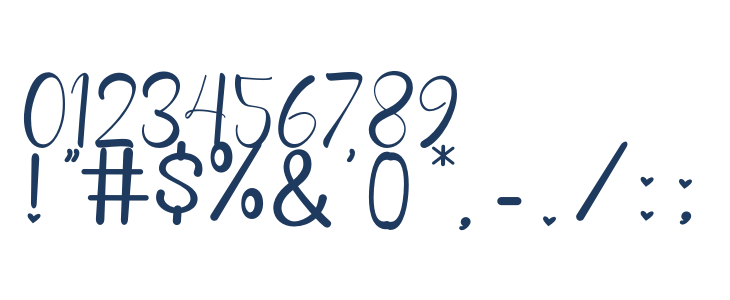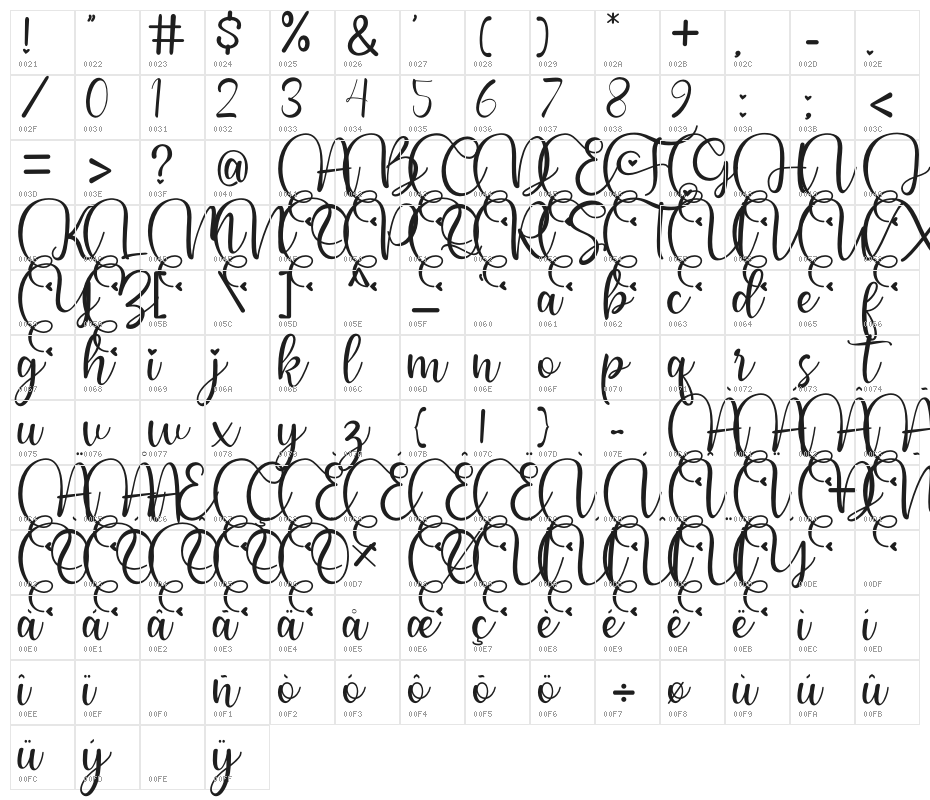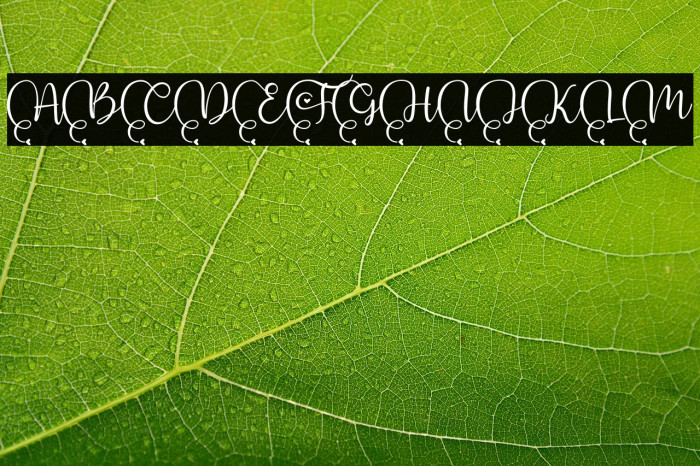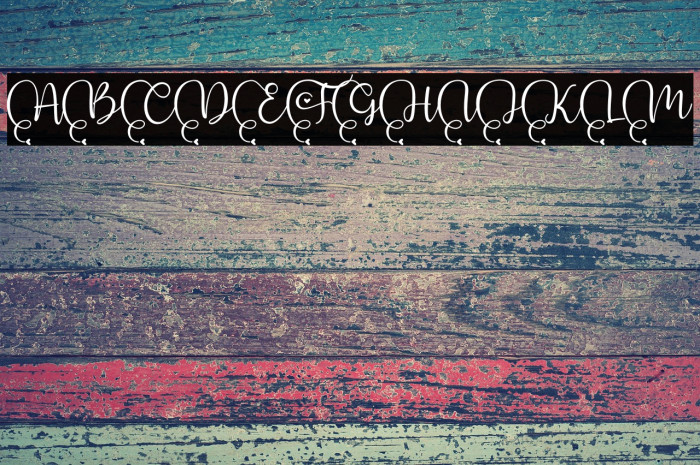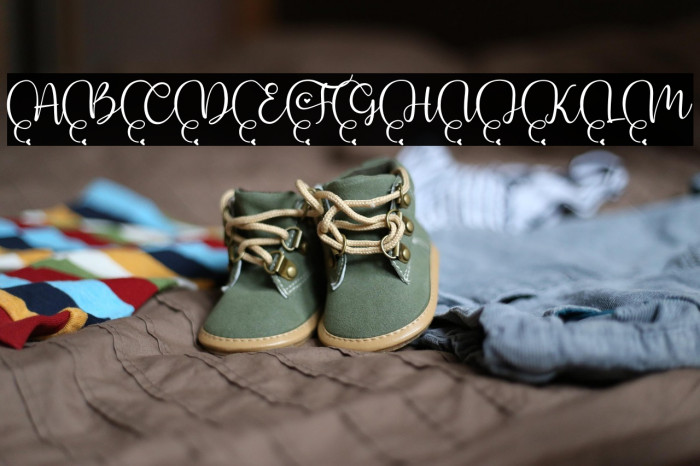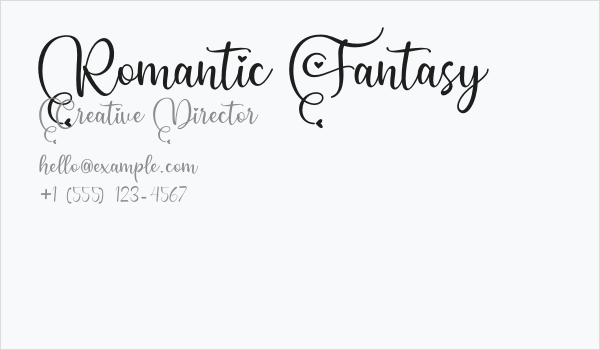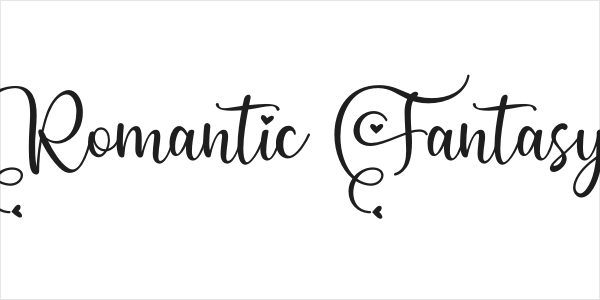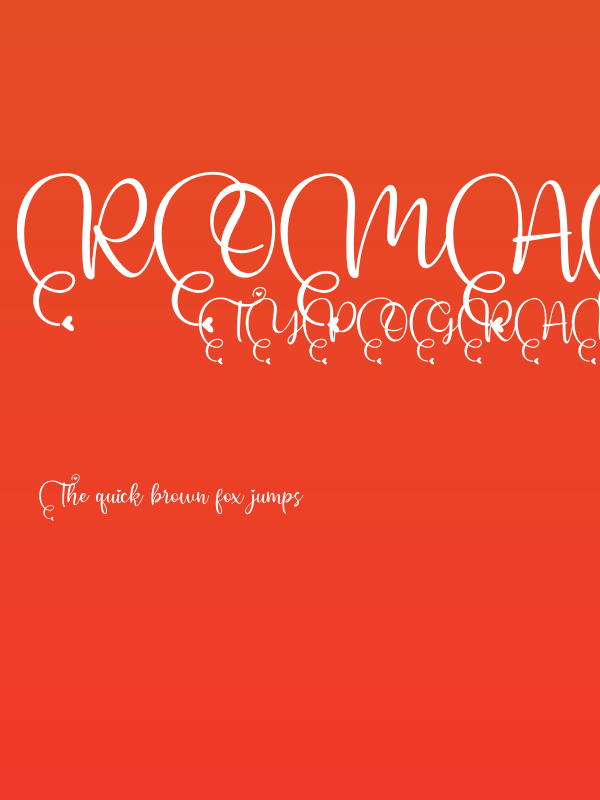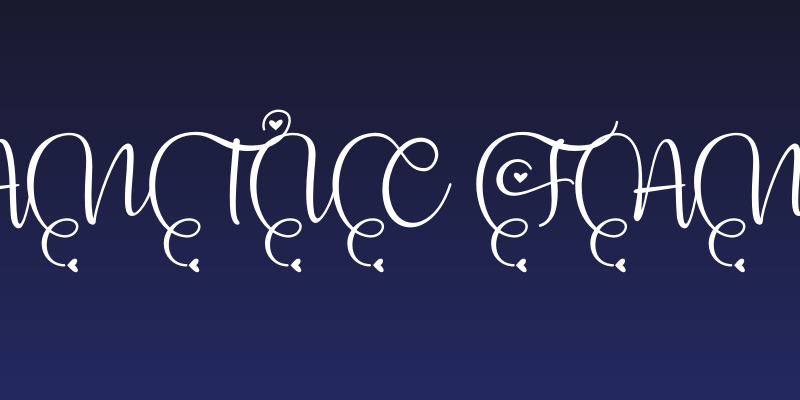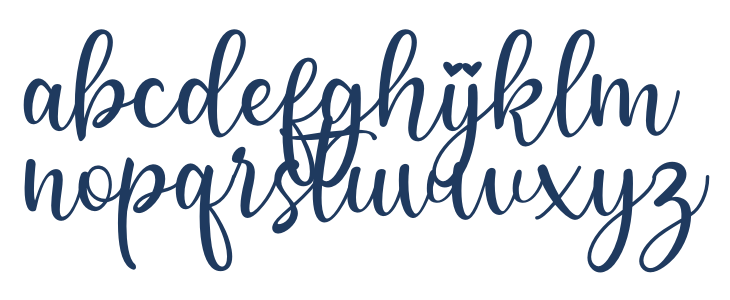
Romantic Fantasy Font
| Stile generale | Romantic, Decorative |
| Caso d'uso | Headlines, Logos, Invitations |
| Progetti proposti | Ideal for wedding invitations, greeting cards, fantasy-themed branding, and decorative projects. |